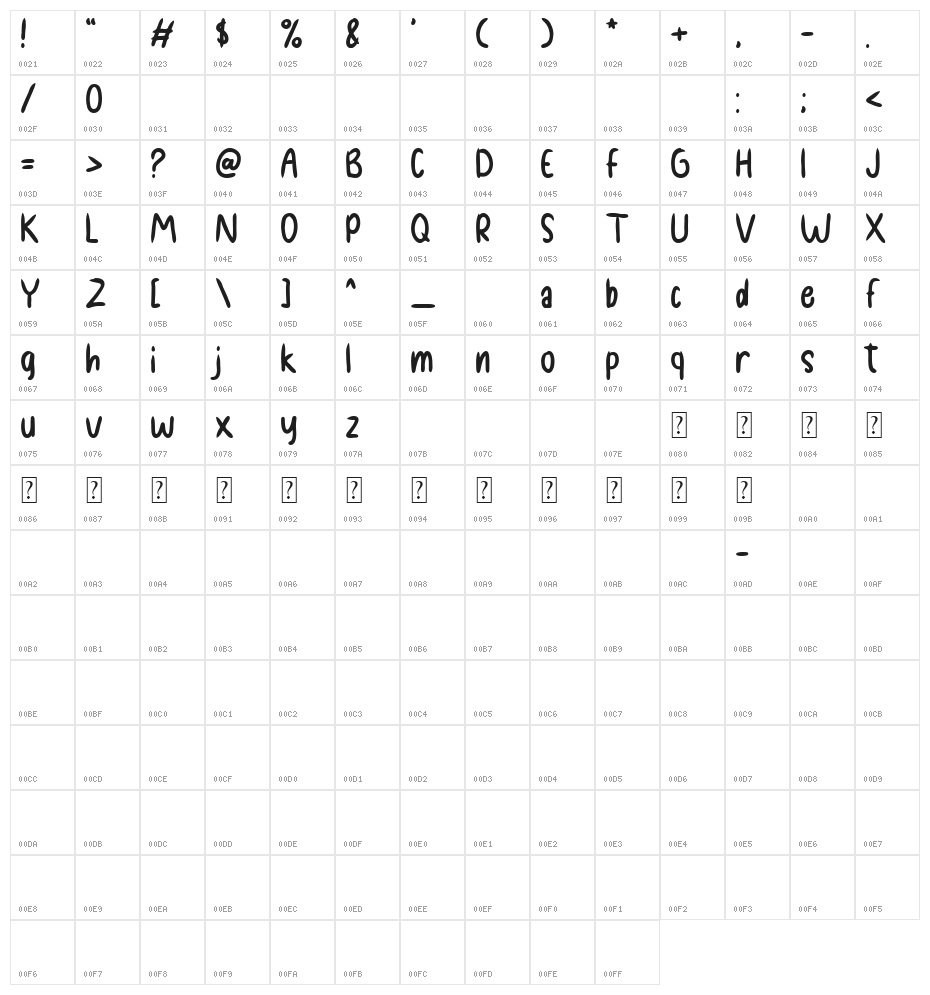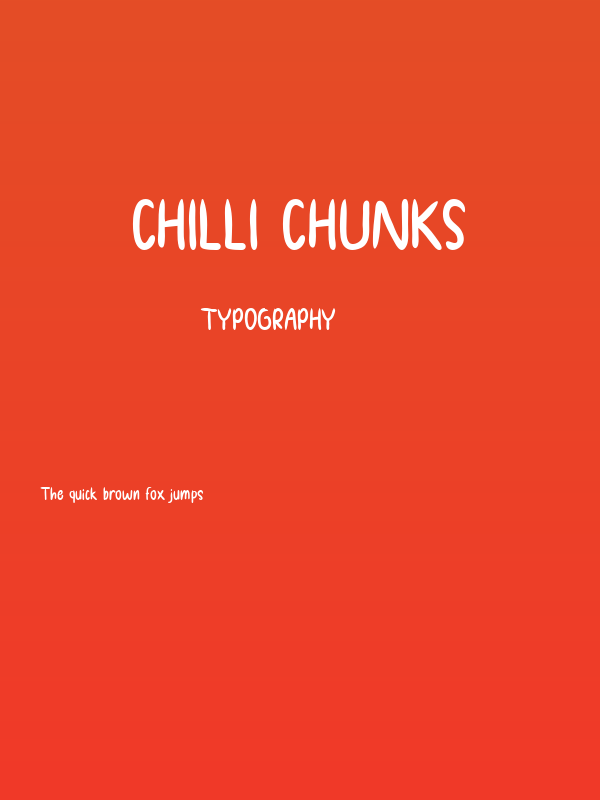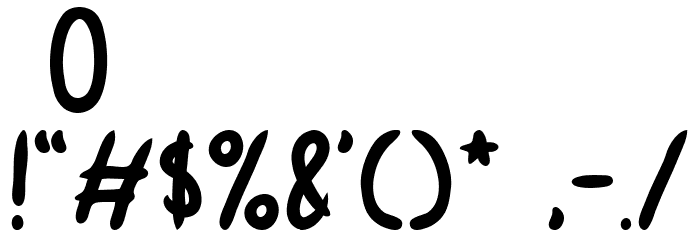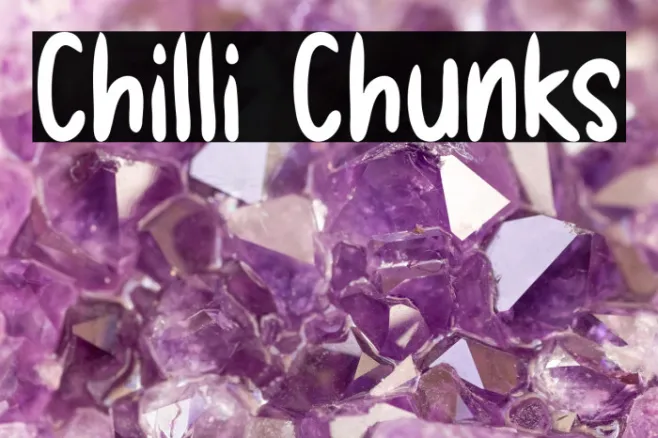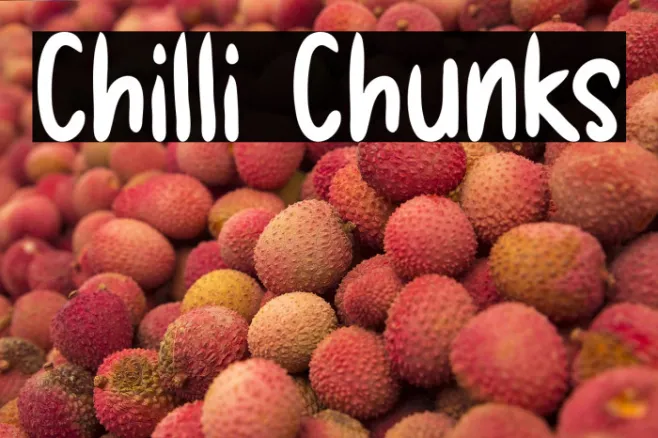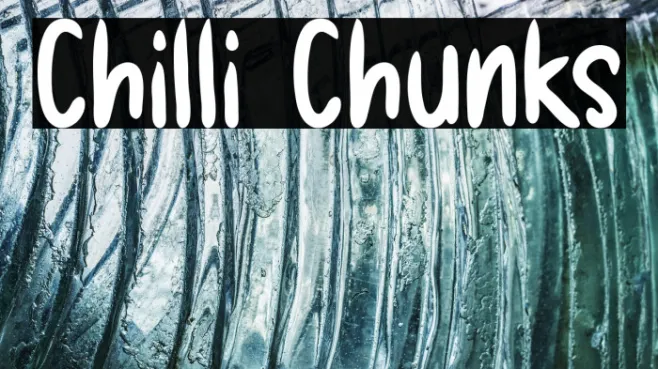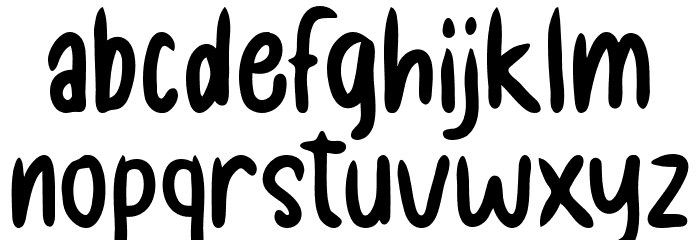
Chilli Chunks Font
Chilli Chunks Description
This playful and bold font features a handwritten style with a casual and friendly appearance. The characters are rounded and slightly irregular, giving it a whimsical and approachable feel. The strokes are consistent in thickness, providing a uniform look across all letters and symbols. This font is ideal for projects that require a fun and informal touch, such as children's books, party invitations, or playful branding. Its unique style stands out, making it perfect for headlines or short text where personality is key.
| Proposed Projects | Children's books, party invitations, playful branding, headlines. |